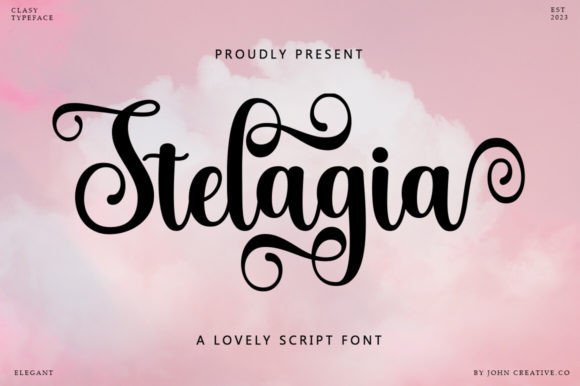
Journey into the world of Stelagia Script, an enchanting handwritten font that promises to elevate your creative projects with an air of timeless sophistication. As a creation of mr.johncreative.co1, this font embodies elegance and charm, making it the perfect choice for adding a touch of heartfelt authenticity to your designs.
Stelagia Script is an artistic masterpiece that combines flowing strokes with a hint of playfulness, resulting in a font that captures the essence of handwritten beauty. Its unique style adds a personal touch to your digital creations, making them stand out from the mundane.
Enchanting and captivating, Stelagia Script is perfect for wedding videos, adding a touch of romance and elegance to your special moments. Its graceful curves and subtle variations create a sense of authenticity, allowing your heartfelt messages to shine through with a personal touch.
With Stelagia Script, you'll find yourself immersed in a world of endless creative possibilities. Its versatility extends to greeting cards, branding projects, social media posts, and more, offering a touch of creativity to any project you undertake. As a PUA encoded font, Stelagia Script grants you easy access to a treasure trove of glyphs and ligatures, providing endless opportunities for unique and captivating designs.
Unleash your creativity and let Stelagia Script guide you on an extraordinary journey of artistic expression. Discover the magic of this enchanting font and allow your designs to blossom with an unforgettable charm.